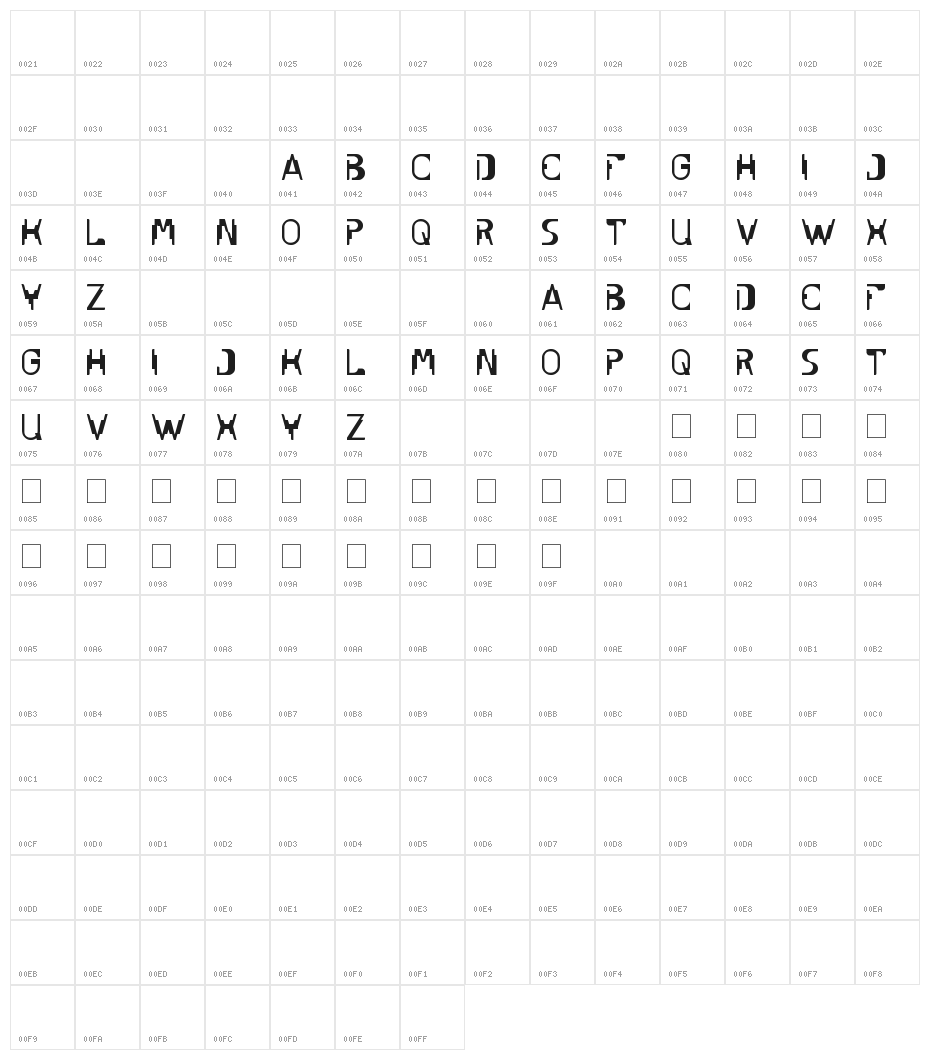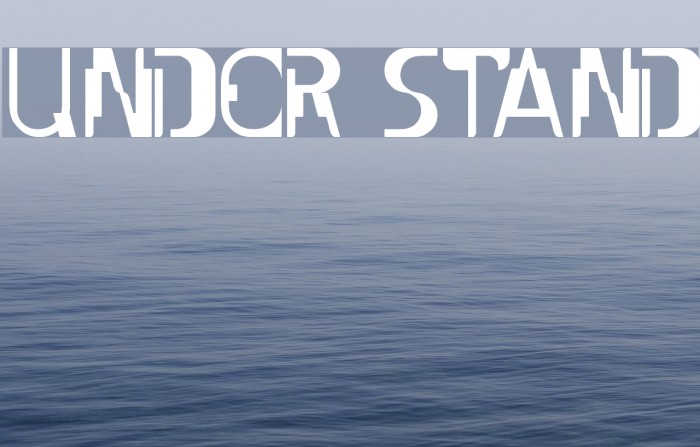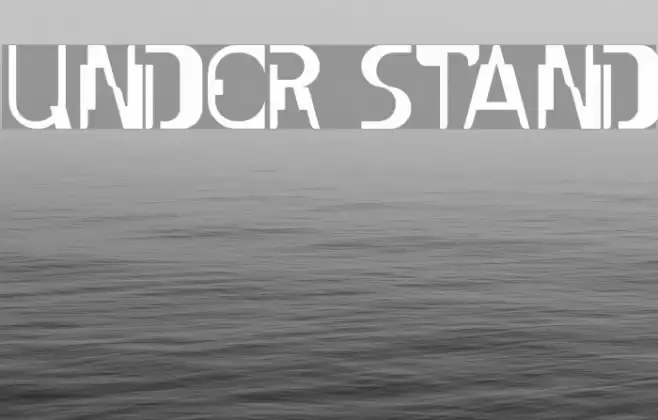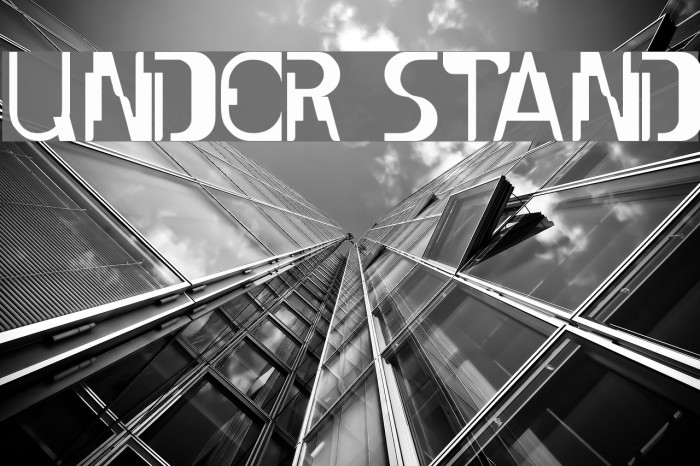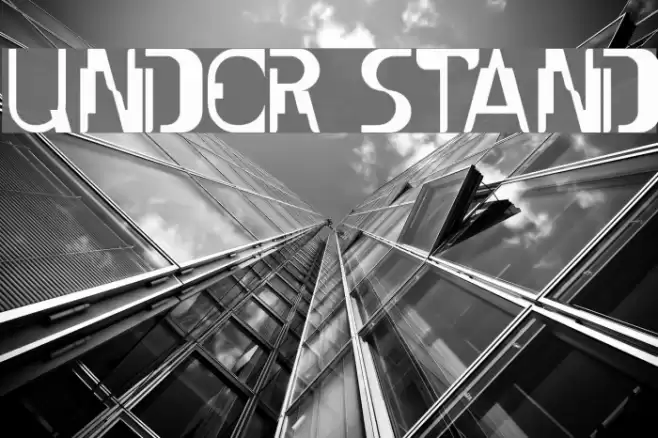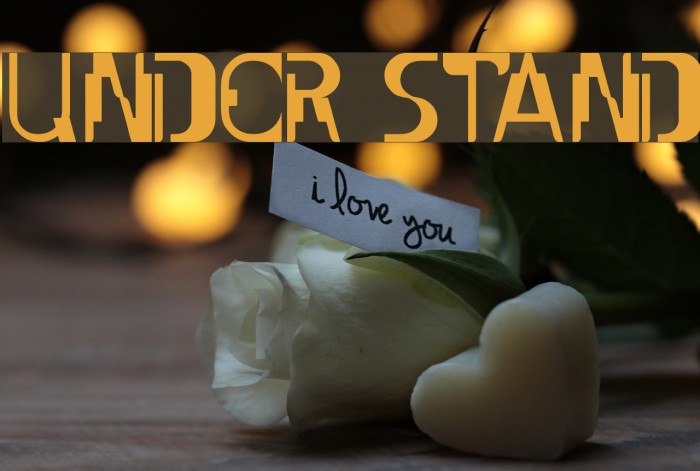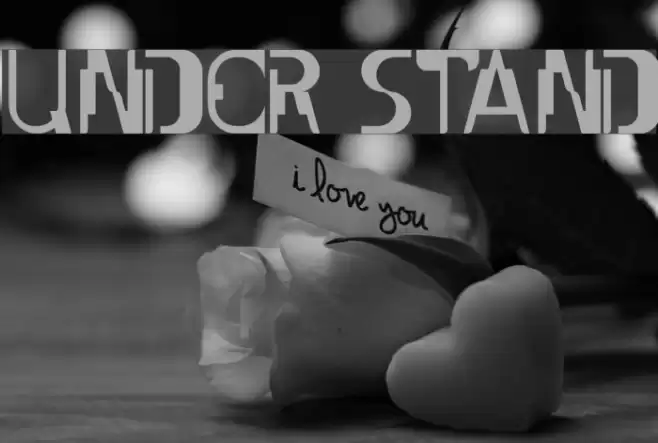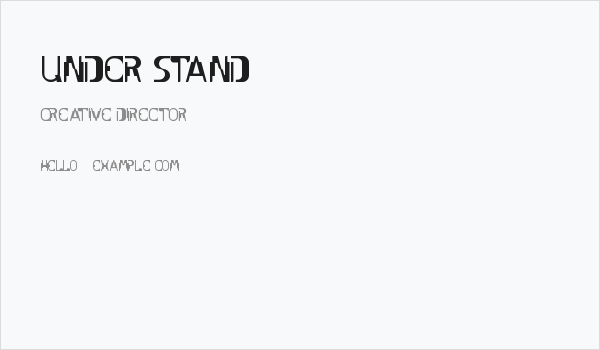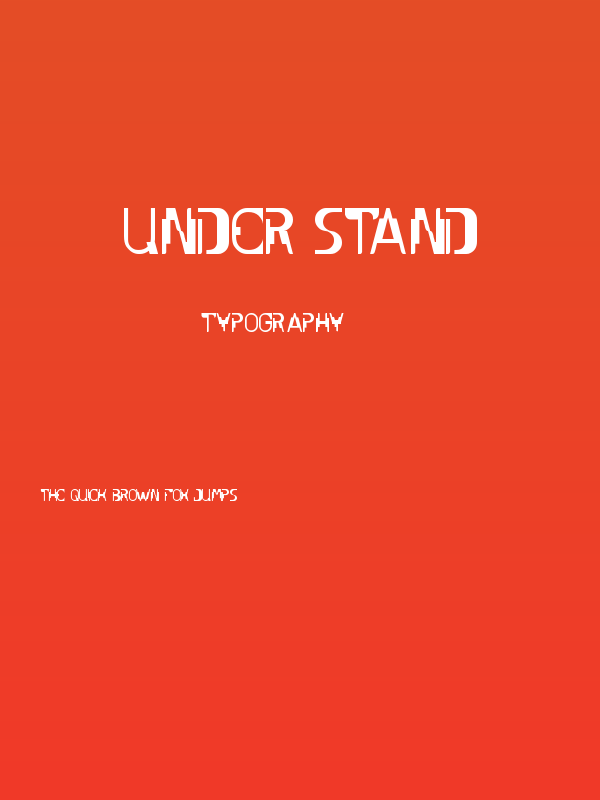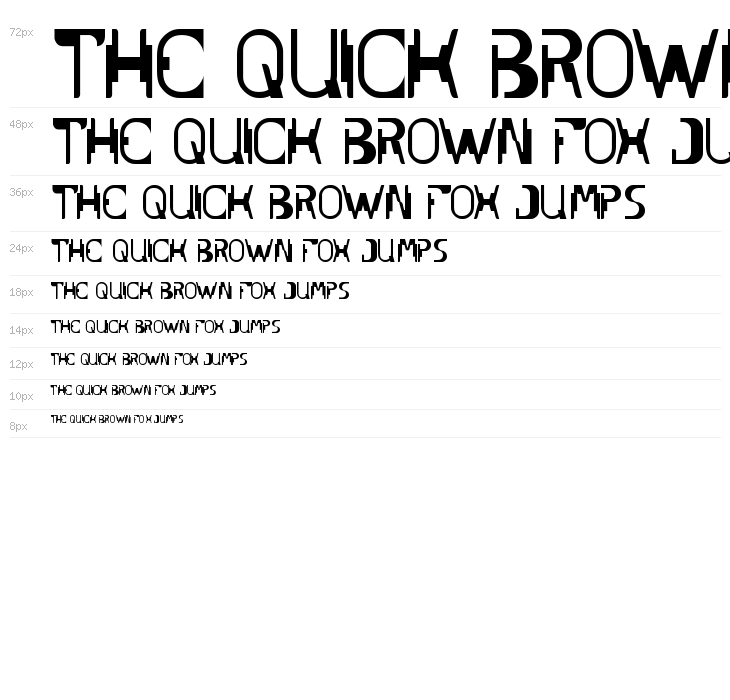
UNDER STAND Font
UNDER STAND Description
This font features a bold and striking design with a futuristic and geometric aesthetic. The characters are constructed with a mix of solid and negative spaces, creating a unique visual rhythm. The uppercase letters are particularly distinctive, with angular cuts and sharp edges that give them a modern, almost industrial feel. The font's design is consistent across all characters, maintaining a cohesive look that is both eye-catching and memorable. Its boldness and high contrast make it suitable for attention-grabbing headlines or branding that requires a strong visual impact.